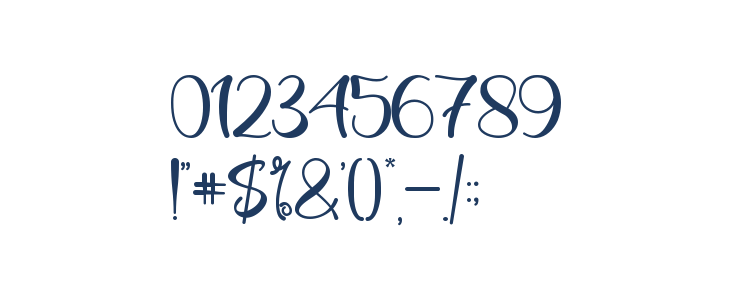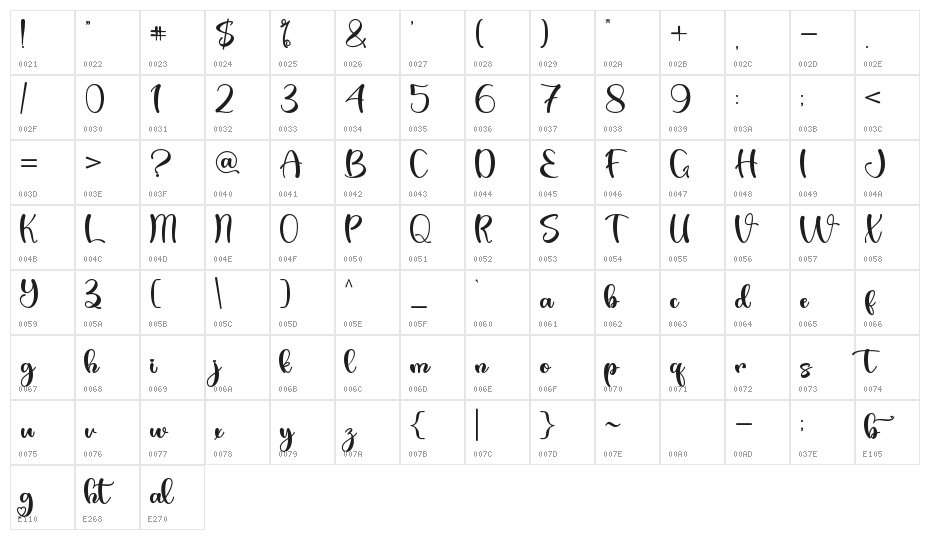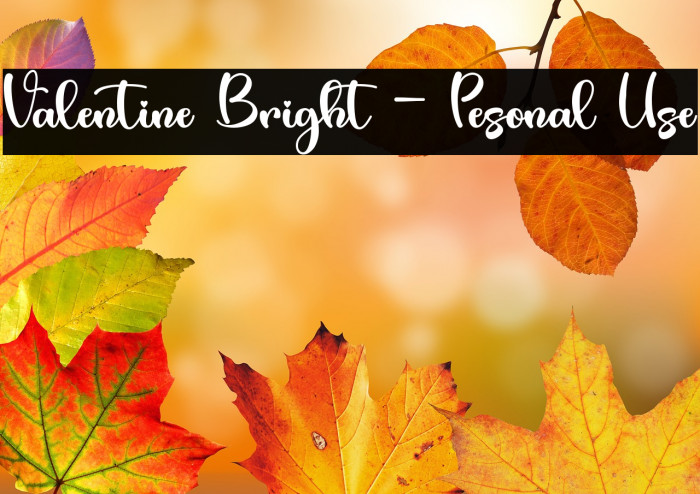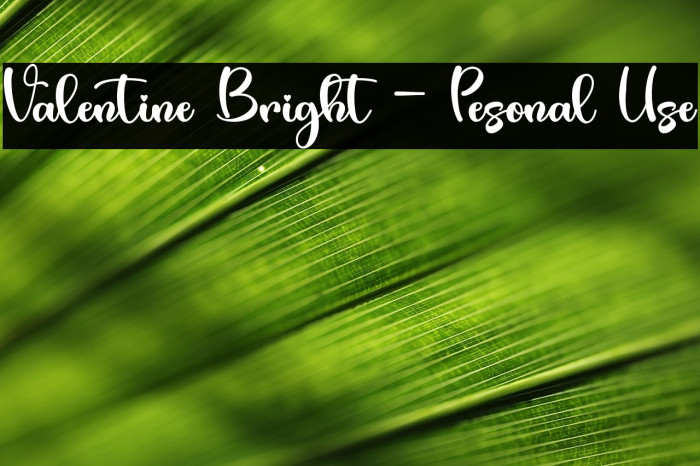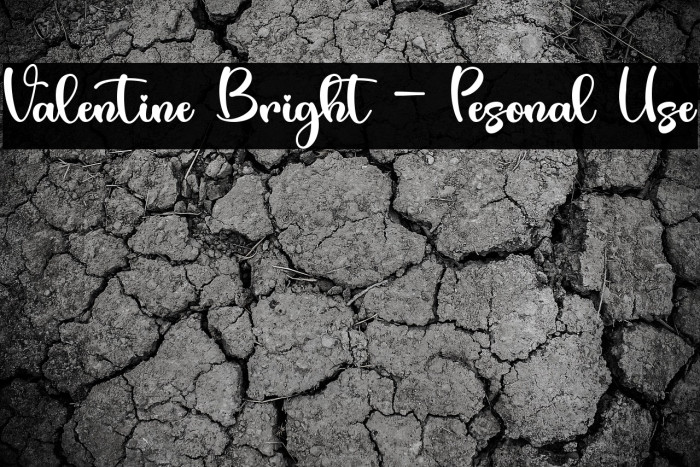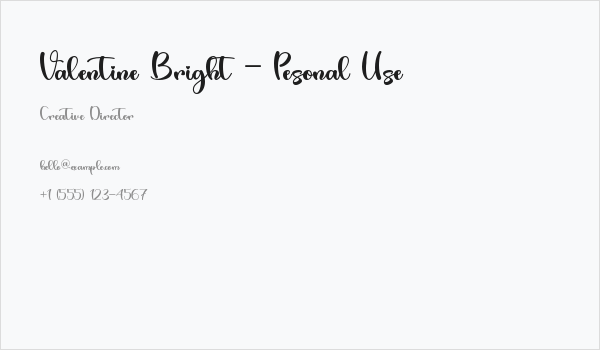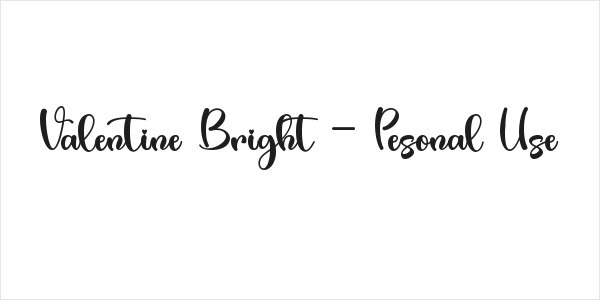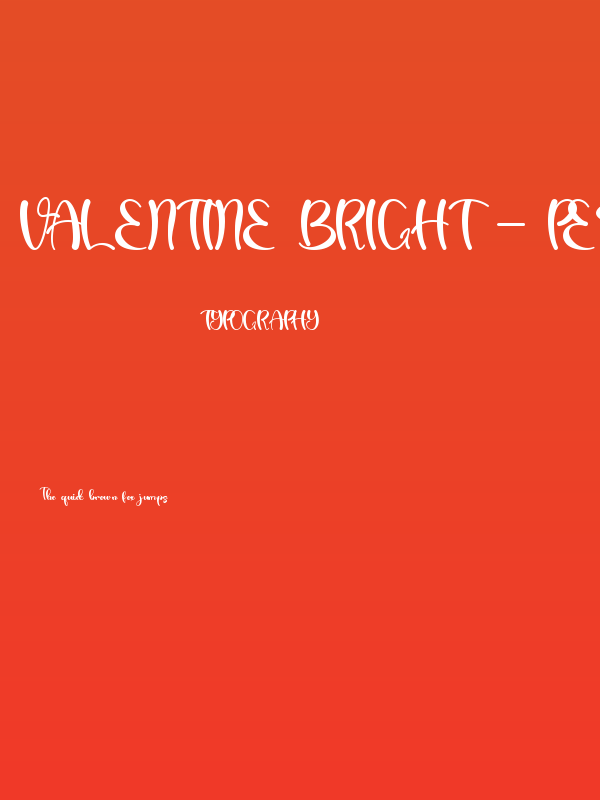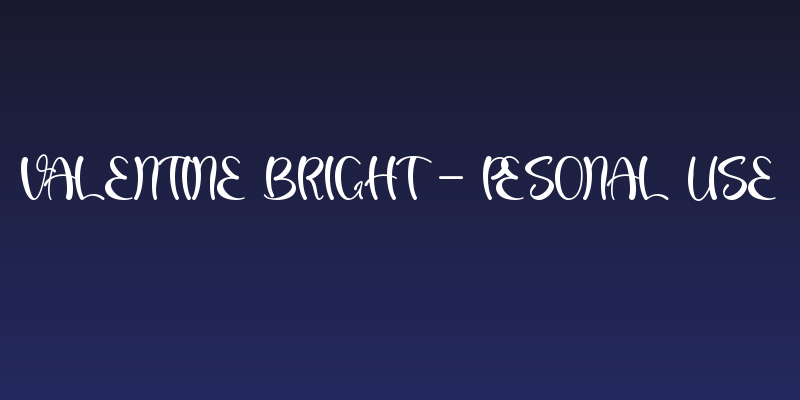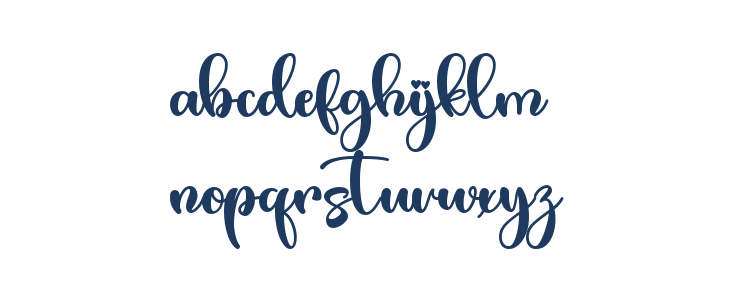
Valentine Bright - Pesonal Use Font
Valentine Bright - Pesonal Use Description
This font features a playful and elegant script style with a handwritten feel. The uppercase letters are bold and flowing, with a slight slant that adds a dynamic quality. The lowercase letters maintain a consistent style, with loops and curves that enhance the font's whimsical nature. The numerals are designed to match the overall aesthetic, with smooth curves and a balanced appearance. Special characters are creatively integrated, maintaining the font's cohesive look. This font is perfect for projects that require a touch of elegance and personality.